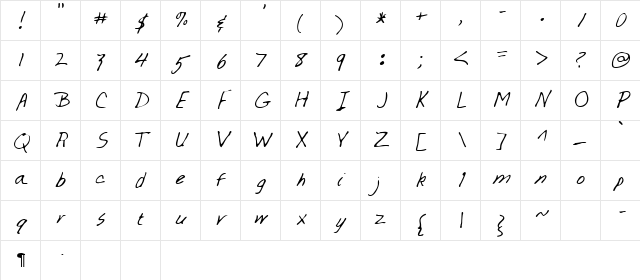
Dlnfont Regular
Design Context for Dlnfont
Dlnfont is a composed and adaptable typeface that performs quietly and consistently across a wide range of design contexts.